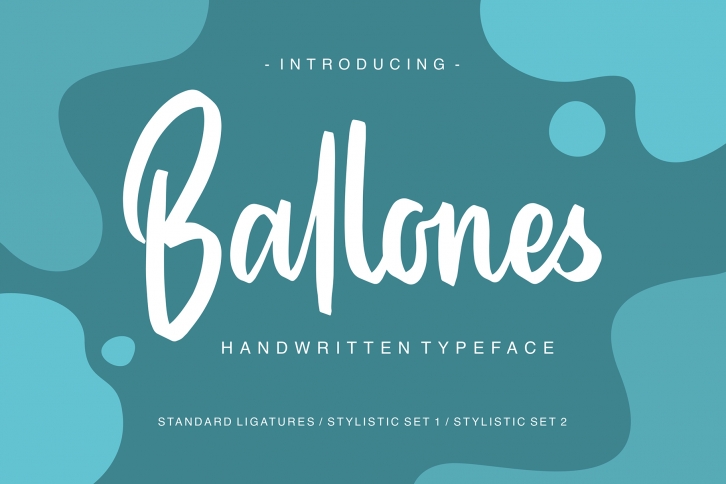
Ballones Script is a gorgeous font that was realeased on October 2, 2019. The font can be used in many style contexts and design environments. Perfect for invitations, magazines, websites, logos, and more! It was designed by BRTL and the file size is 8.6 MB. Thanks for checking out this font!